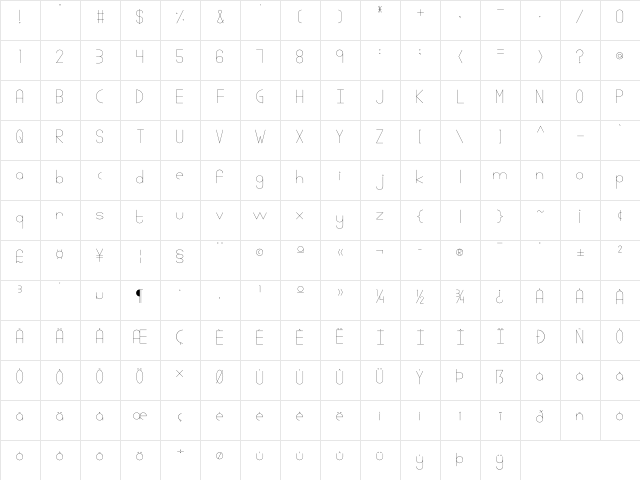
Linlegrey regular Free Font
Linlegrey regular
Design Context for Linlegrey
Linlegrey is a composed and adaptable typeface that performs quietly and consistently across a wide range of design contexts.